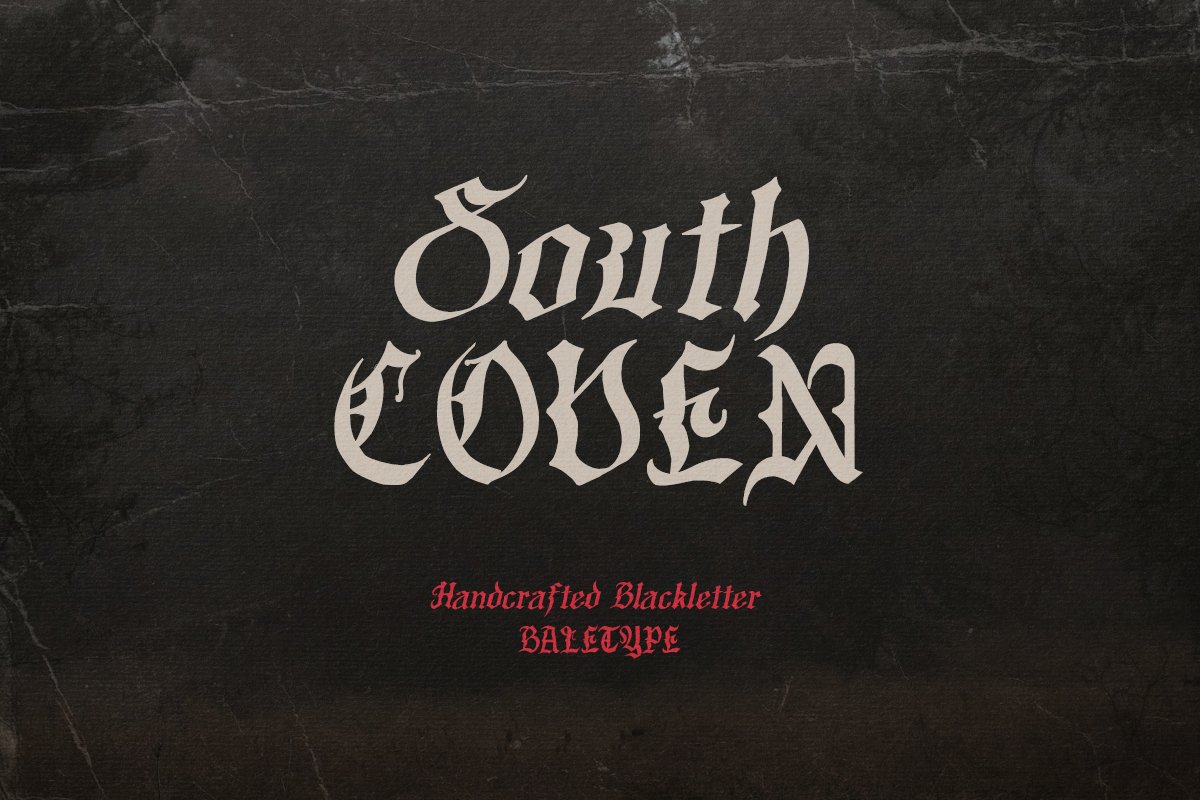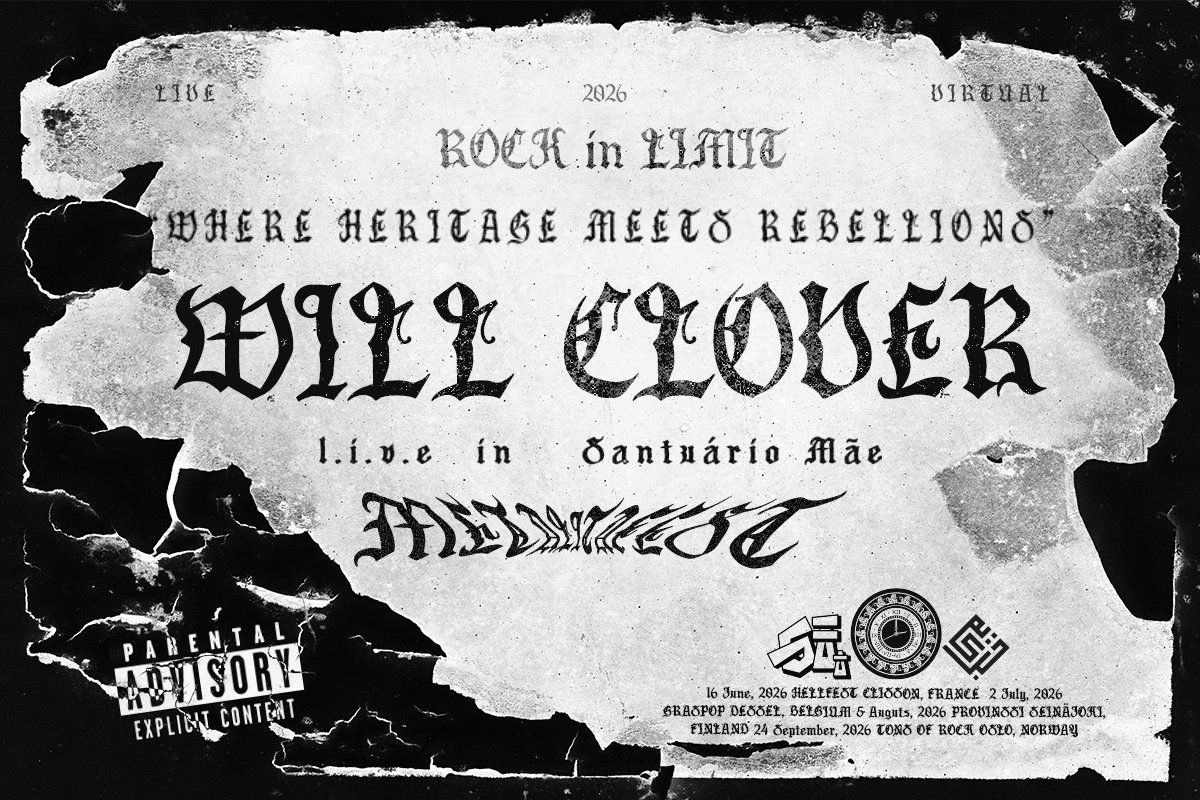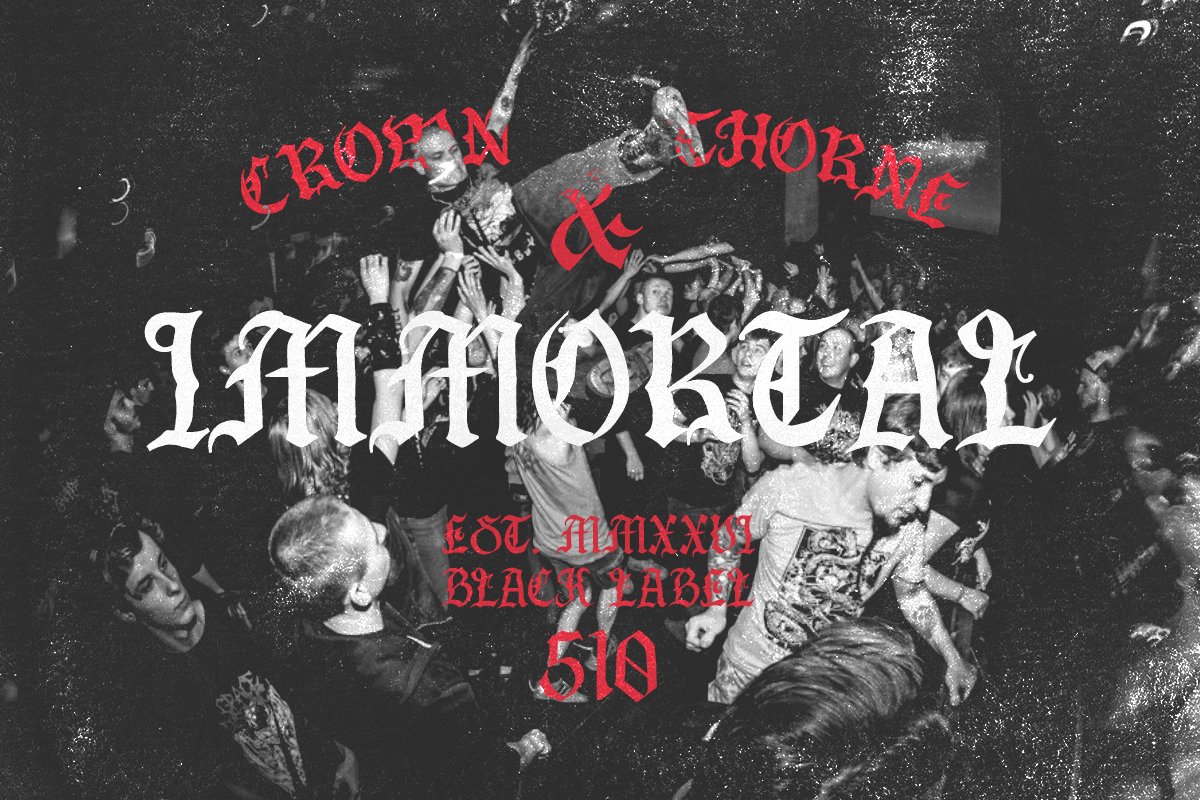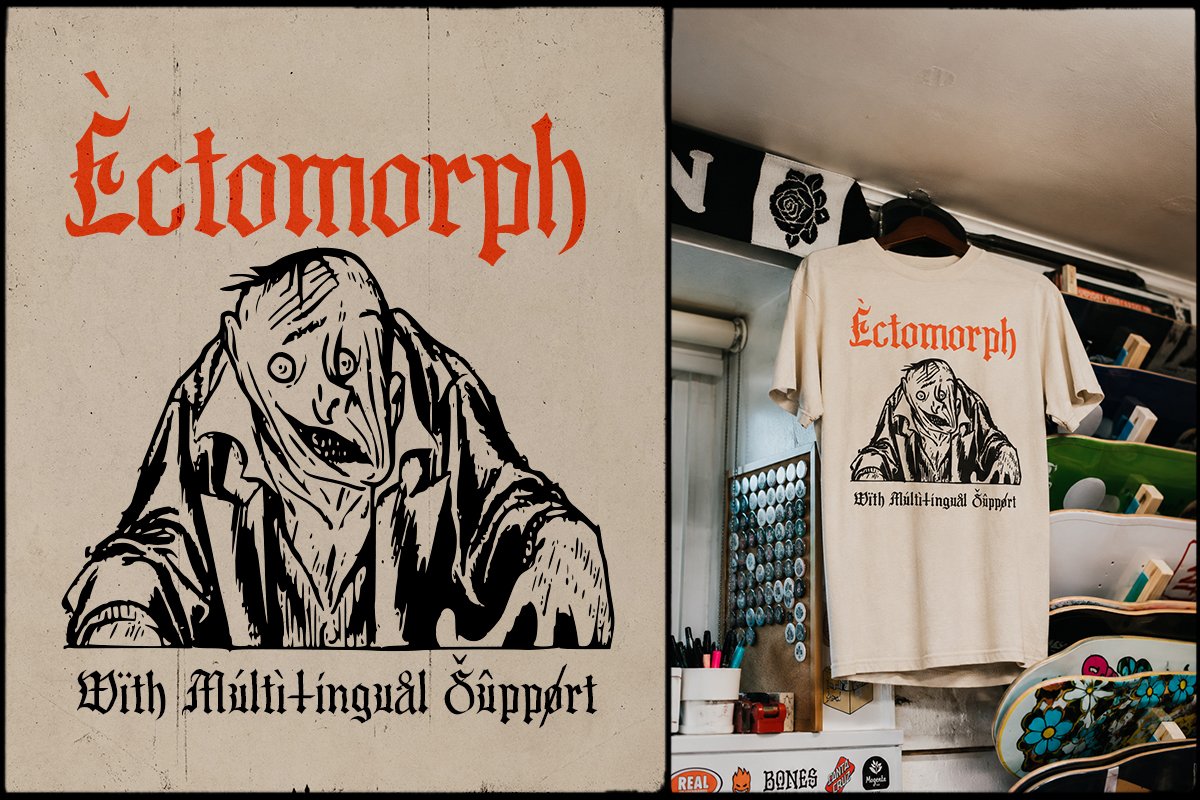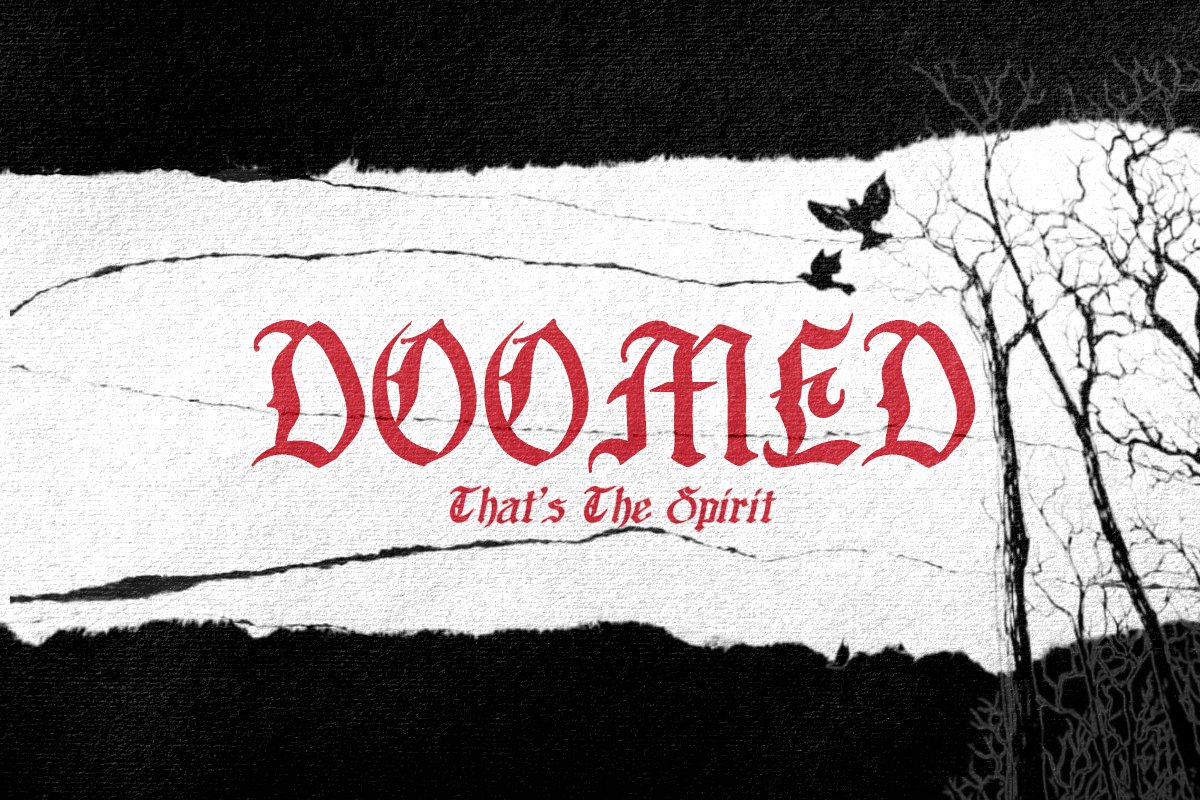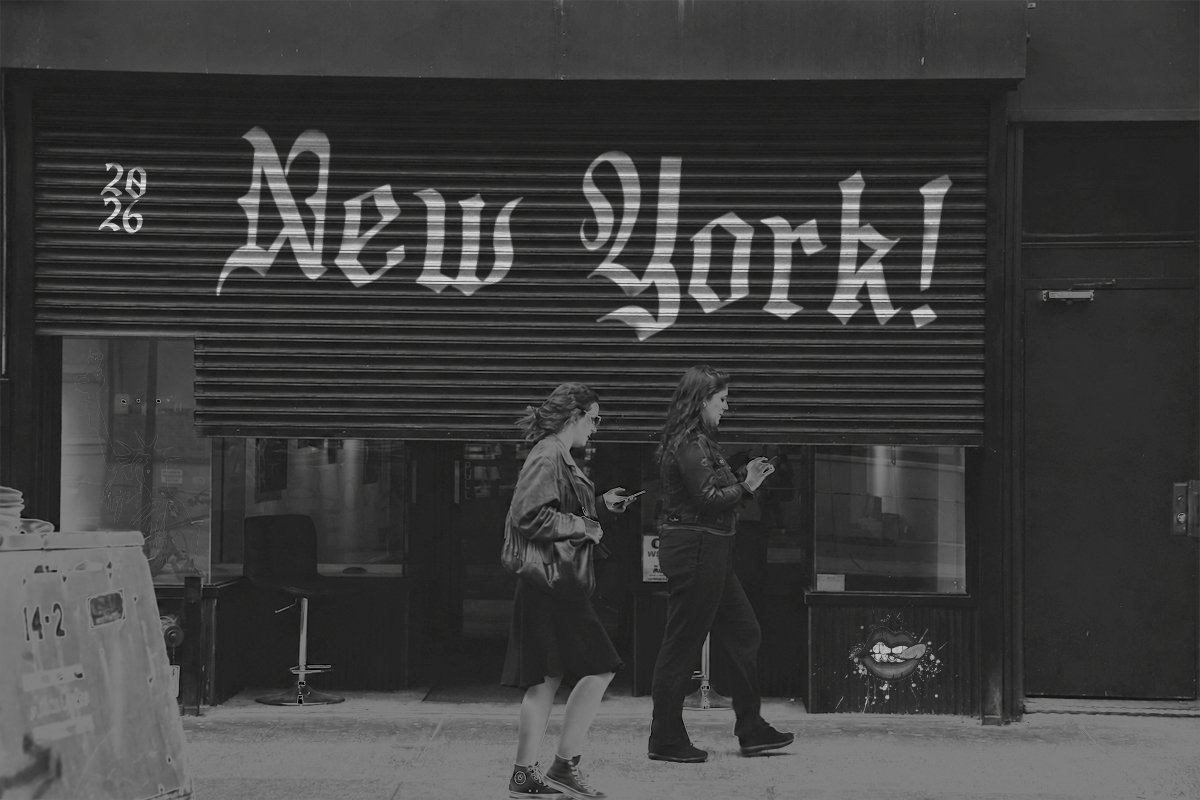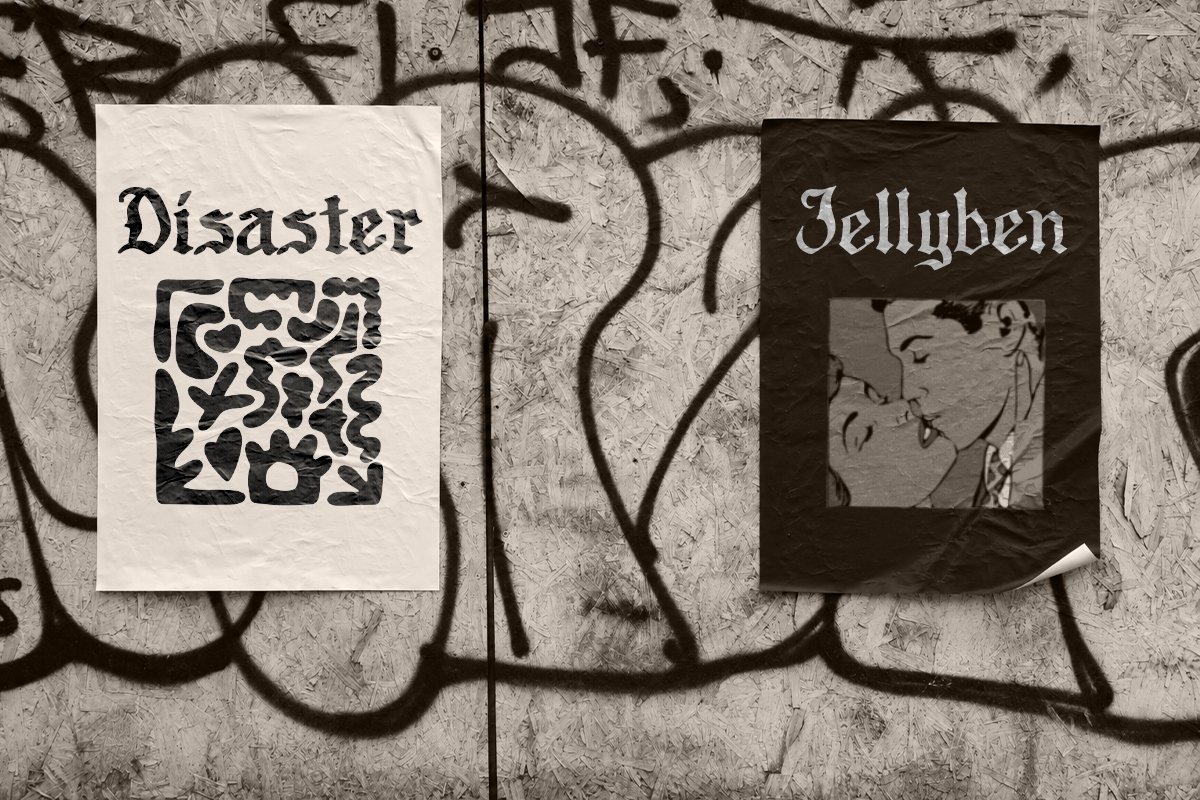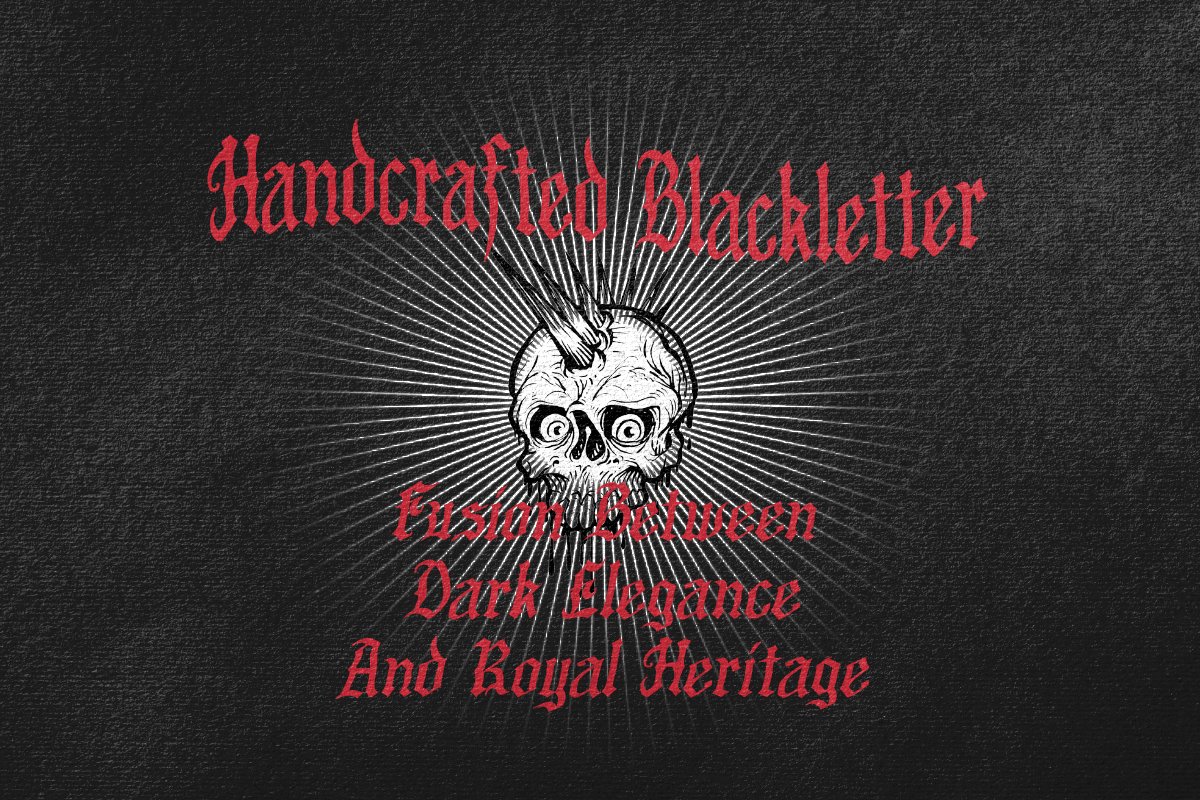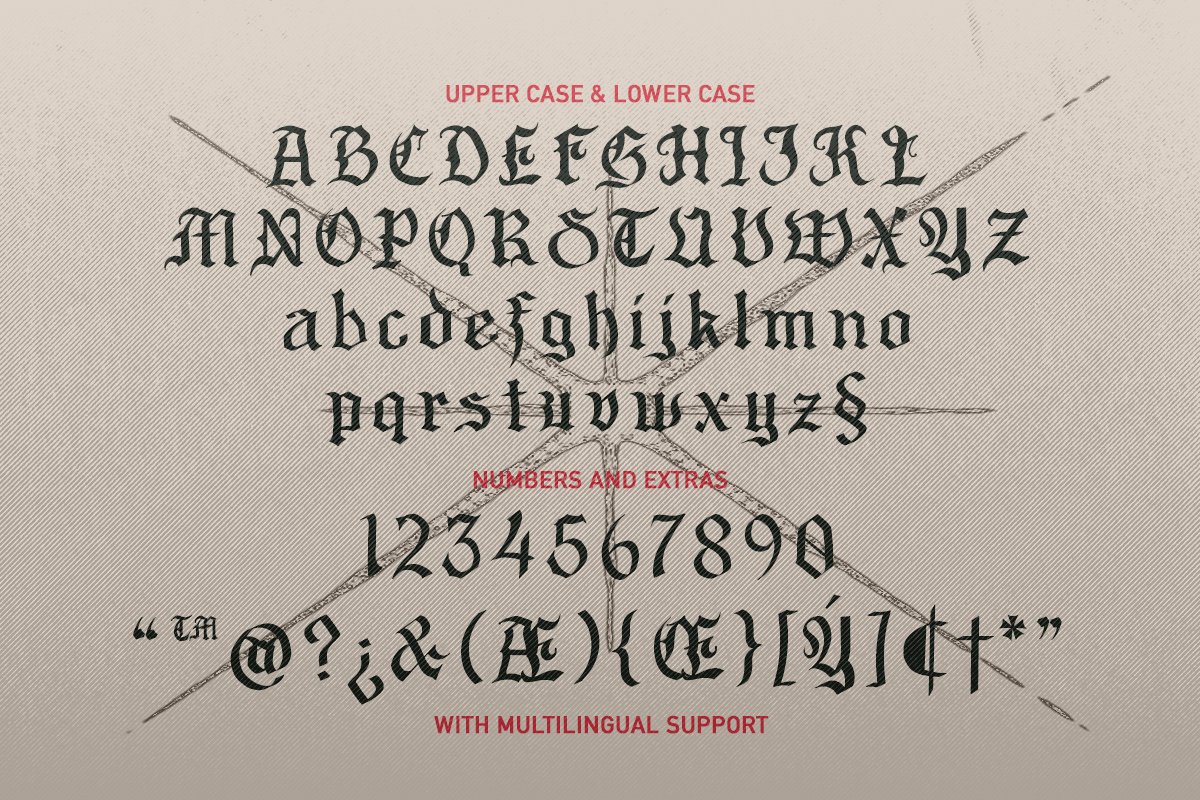
South Coven - Rough Blackletter
South Coven is a handcrafted blackletter font with rough and grunge vibes. You can use this font for any project that need to look punk and street art style like poster, quote, branding. This font also great for horror project like halloween project or movie tittle to add some creepiness and edgy style. This font also support multi language.
South Coven – Rough Blackletter
South Coven is a handcrafted blackletter font with rough and grunge vibes.